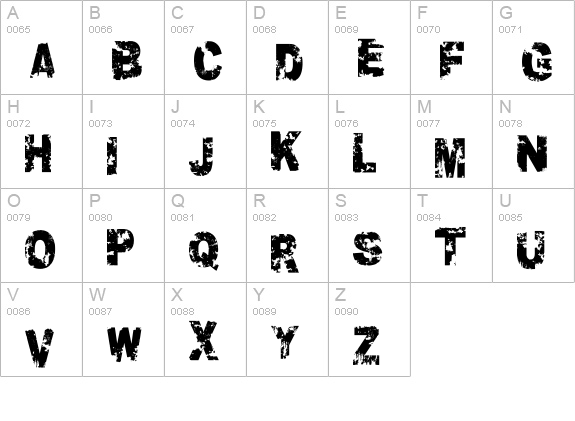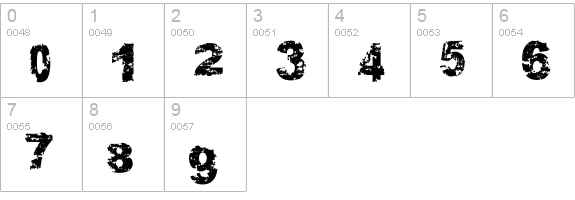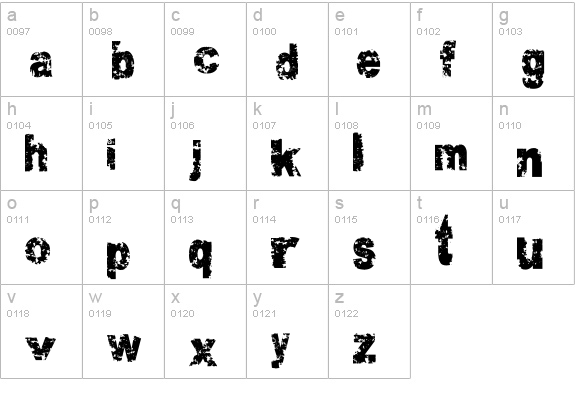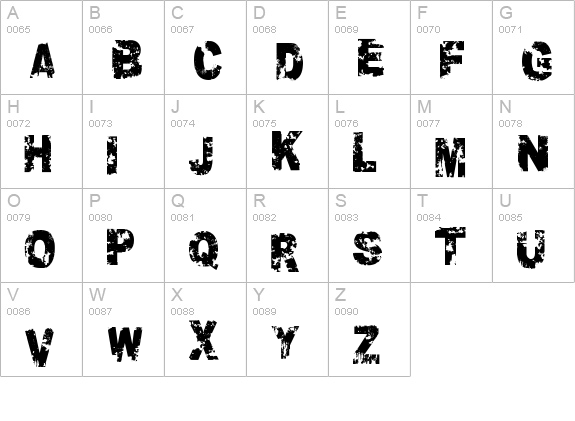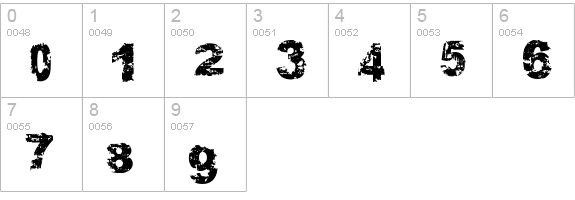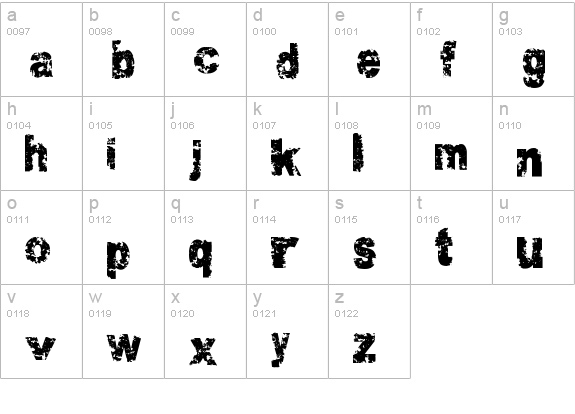
Colton Grundy wicked6th Font Details
Introducing Colton Grundy Wicked6th Font, a bold and dynamic typeface that exudes a sense of edgy sophistication. This font is perfect for projects that require a touch of wickedness and a hint of mystery. With its sharp lines and unique details, Colton Grundy Wicked6th Font is sure to make a statement. Best of all, Colton Grundy Wicked6th Font is available for free download at FontsMarket.com. Whether you're working on a graphic design project, branding materials, or any other creative endeavor, this font is a versatile choice that will add a touch of intrigue to your work. Don't miss out on the opportunity to add Colton Grundy Wicked6th Font to your font collection today!